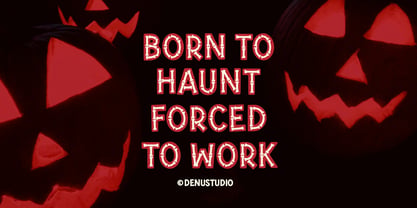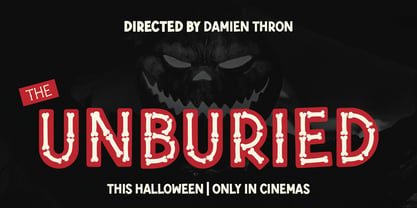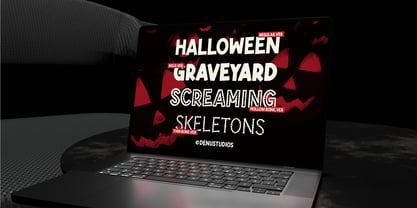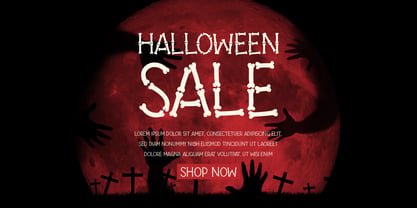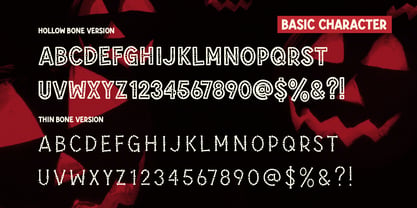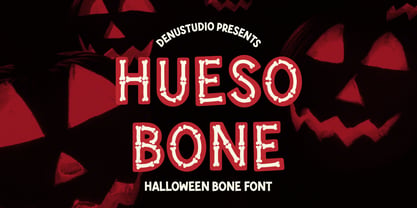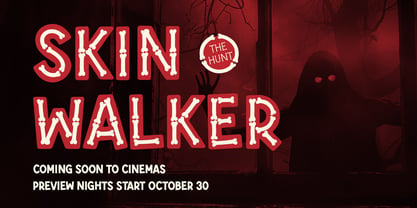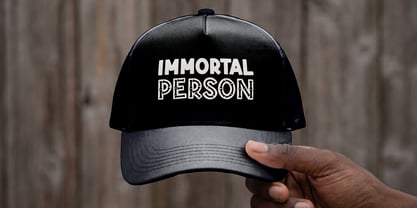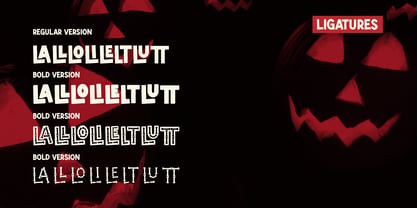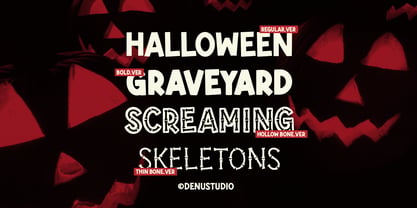
Hueso Bone
von Denustudio
Die Schriftfamilie Hueso Bone wurde von Dede Nugraha entworfen und von Denustudio veröffentlicht. Hueso Bone enthält 4 Stile und Familienpaketoptionen. Mehr über diese Familie
Hueso Bone | Halloween Bone Font, from Denustudios, suitable for any projects such as: logos, branding projects, homeware designs, product packaging, mugs, quotes, posters, shopping bags, t-shirts, book covers, name card, invitation cards, greeting cards, label, photography, watermark, special events, and all your other lovely projects that need Halloween Font a taste.